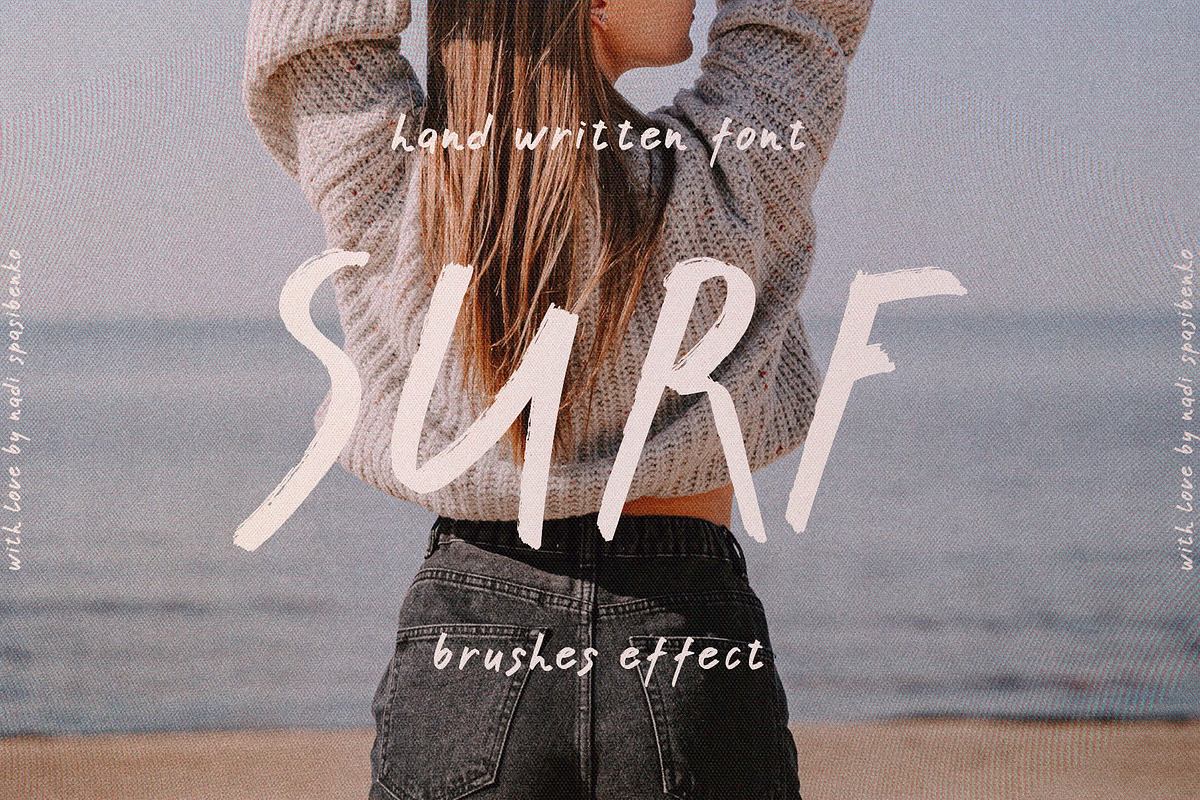
The Ocean Surf Hand Written Font Free Download is a breezy, casual script font inspired by beachside vibes and the carefree flow of handwritten notes. Perfect for summer-themed projects, surf apparel, travel blogs, Instagram graphics, and laid-back branding, this font brings a relaxed and friendly energy to your designs.
Its natural, flowing strokes give Ocean Surf a sun-kissed personality, while maintaining legibility and balance. It includes uppercase and lowercase characters, punctuation, ligatures, and multilingual support—making it versatile for a variety of creative applications.